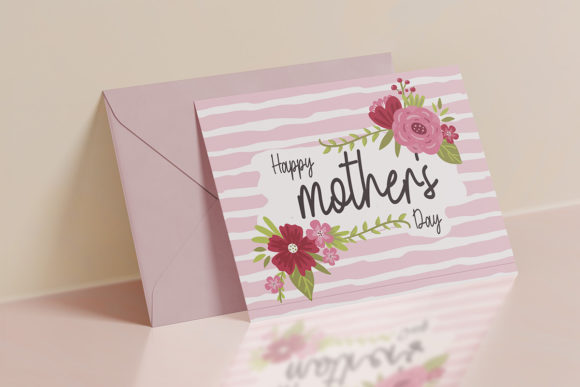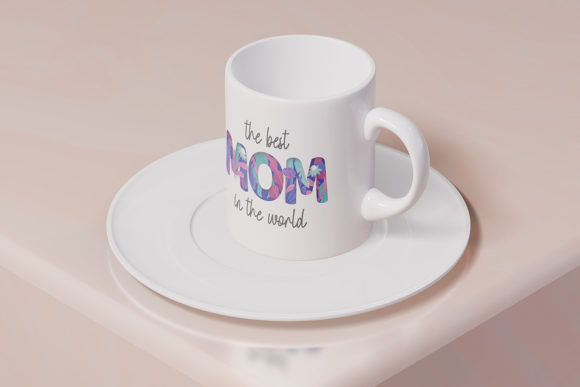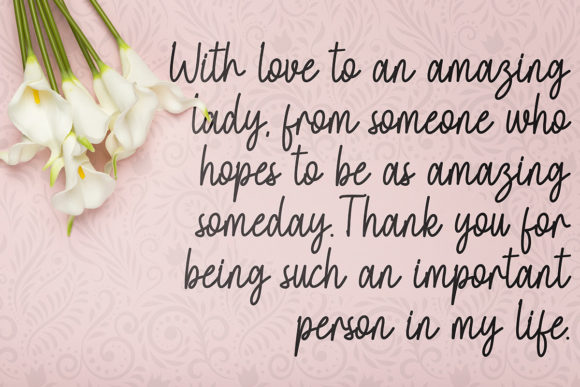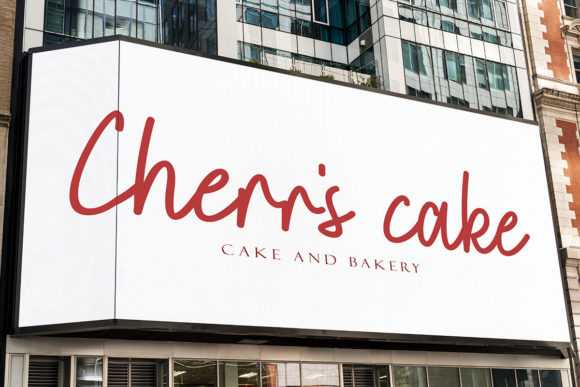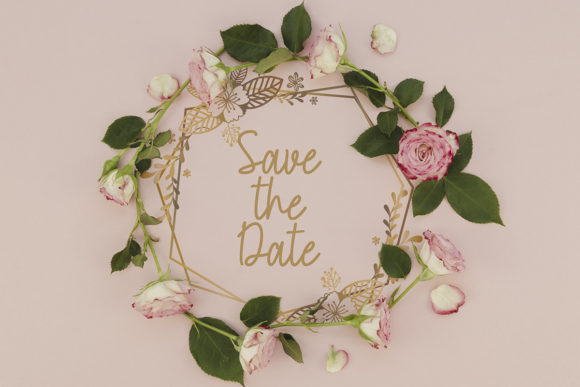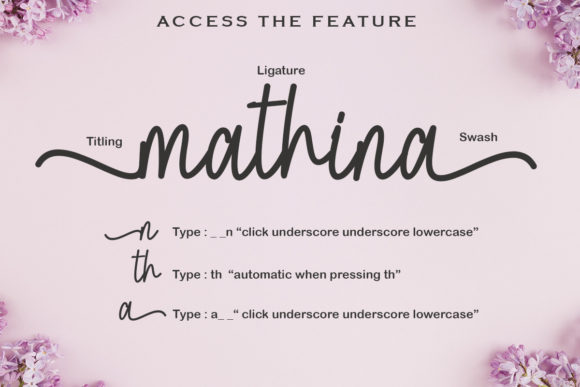
Introduction to Leonisa Font
Remember the moment when you finally found the perfect font to elevate your design project? It’s that ‘aha’ moment when everything falls into place, and your creative vision starts to take shape. For many designers, that moment often comes when they stumble upon a unique, high-quality font that adds an extra layer of sophistication to their work.
One such gem is the Leonisa Font, a beautiful, flowing, and retro-styled handwritten font that has captured the hearts of designers worldwide. Its versatility and elegant style make it an ideal choice for a wide range of creative projects, from branding and marketing materials to editorial and digital designs.
With its PUA encoding, accessing all the glyphs and swashes is a breeze, allowing designers to create stunning, one-of-a-kind designs with ease. Whether you’re a seasoned pro or just starting out, the Leonisa Font is an invaluable resource that’s sure to become a staple in your design toolkit.
Leonisa Font Key Features
• Includes a comprehensive character set, ensuring effective communication in various languages.
• Designed with attention to detail, offering a professional and polished look for any creative project.
Honest Review: Leonisa Font
I recently had the chance to work with the Leonisa Font and I must say, it’s a solid addition to any designer’s toolkit. One of the things that stood out to me was the high quality of the font itself, with crisp lines and a clean design that lends itself well to a variety of creative projects.
Here are some of the things that I liked about the Leonisa Font:
• ✨ High-quality design
• ✨ Versatile and suitable for a range of creative projects
That being said, there are a few limitations to keep in mind:
• ⚠️ The font is not as extensive as some other fonts on the market, with a limited number of styles and weights
Overall, I was impressed with the Leonisa Font and would recommend it to designers looking for a high-quality, free font for their next project.
Leonisa Font is commonly used in creative projects such as:
• Wedding invitations and stationery
• Branding and logo design
• Graphic design and typography